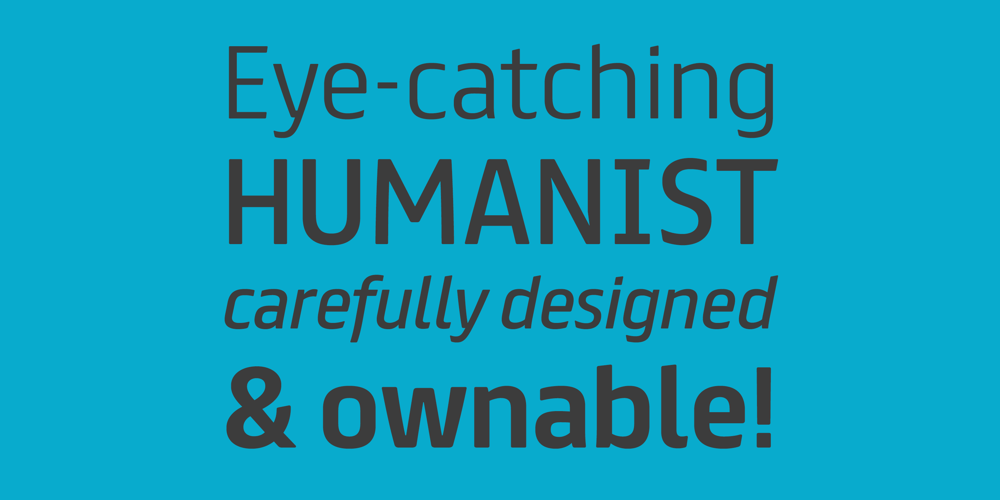
FS Truman
FS Truman font
FS Truman Font Family was designed by Jason Smith, Fernando Mello and published by Fontsmith. FS Truman contains 6 styles and family package options. Beyond broadcastLike Truman Burbank, the star of The Truman Show, FS Truman was born for TV. You’ll know it from Sky One’s on-screen trails and announcements, but it’s just as at home in other media.Its starting point was the skeleton of a highly legible, space-saving, corporate font with some of FS Dillon’s geometric discipline built in. Its distinctive tone of voice and “ownability” are in its boxy but friendly shapes, and characters with hybrid features.FS Truman’s weights and widths were honed to work at TV screen resolutions. A face for TV it may have been, but this is a font that works on every level, on screen, in print, in headlines, in listings, in longer text, in tight corners and open spaces.The space-saverCompact, condensed but crystal clear, FS Truman comes into its own where a lot needs to be said in not a lot of space. Its letter spacing allows the type room to breathe, even at small sizes, while its fulsome x-height and diminutive descenders pave the way for tighter leading. A natural for headlines and titles over three or four lines.“Hybrid” featuresWith every font, Fontsmith look for crafty new ways to imbue letterforms with a consistent character. The idea with FS Truman was to introduce “hybrid” features.In open letters such as “c” and “s”, for example, the top terminals have straight, vertical cuts while their lower terminals have a more angular, cursive finish. Boxy, spacious forms with unusual curves and angles create not just highly legible and efficient letters but strongly distinctive ones, too.